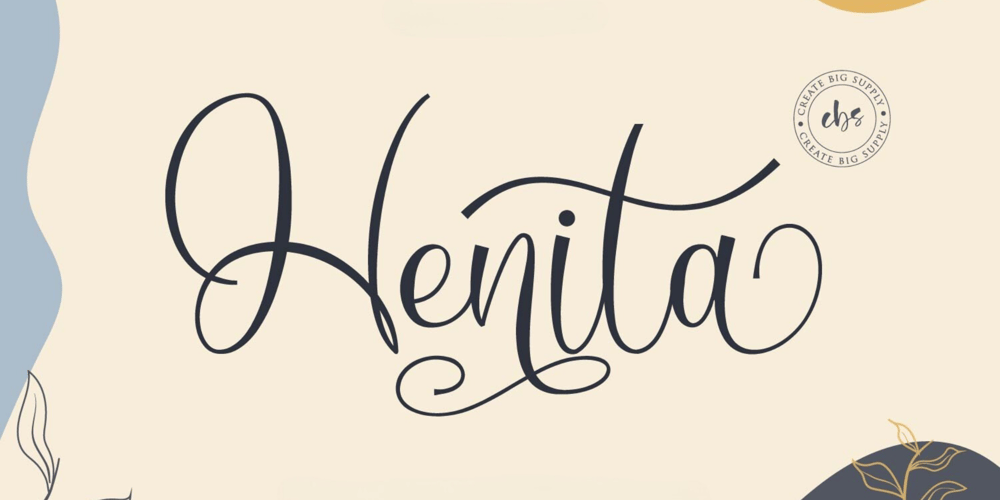
Henita Font Family was designed by Irpan Maulana and published by Sabrcreative. Henita contains 1 styles and family package options. Welcome to Sabr Creative, your destination for exceptional fonts that infuse elegance into your designs. Introducing Henita, a collection of exquisite elegant script fonts designed to bring sophistication and charm to your creative projects.